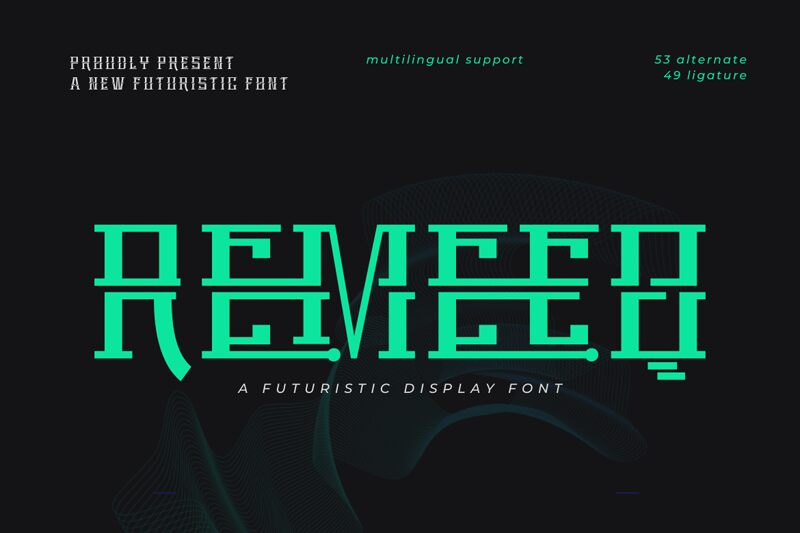
REMEEQtrial Regular
Remeeq font by Twinletter is a futuristic display typeface that brings a modern yet aesthetically soothing feel to any design project. The style features a geometrically structured and condensed set of characters that are both readable and interesting on their own.